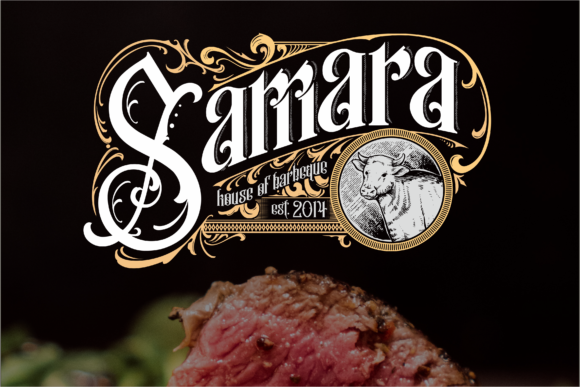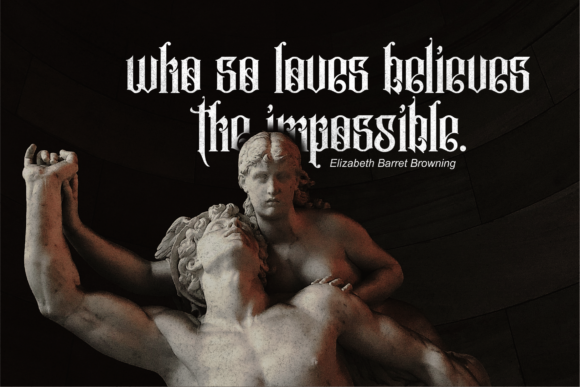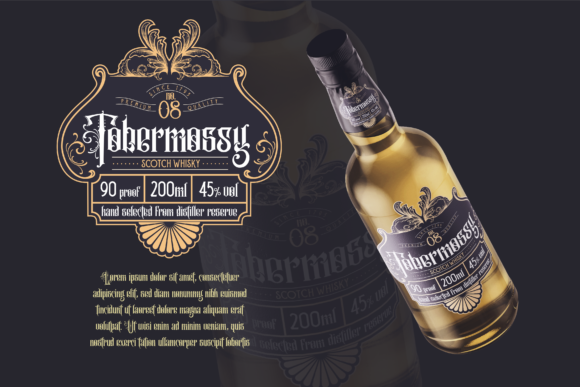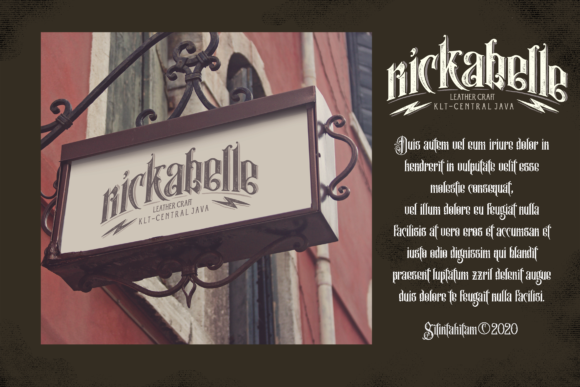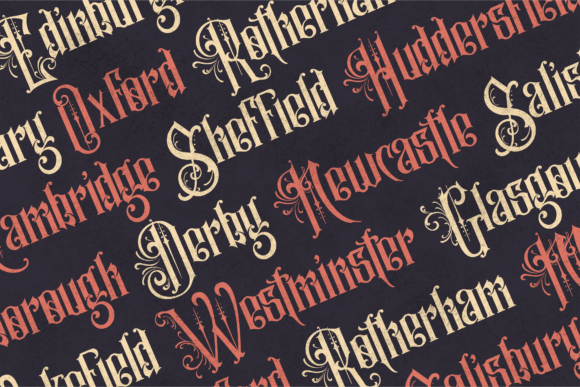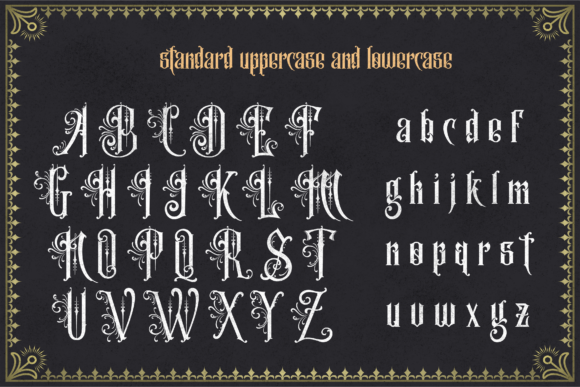
Discover the Power of Arteria Font
Have you ever stared at a blank page, trying to conjure up the perfect font to bring your design to life? It’s a moment we’ve all experienced – the moment when the right font can make or break the entire aesthetic. For designers, this is a constant challenge, and one that requires a keen eye for detail and a deep understanding of typography.
That’s where Arteria Font comes in – a vintage-styled display font that exudes boldness and power. Designed to make your designs stand out from the crowd, Arteria Font is the perfect addition to any creative project. Whether you’re working on a branding campaign, a magazine spread, or a social media post, this font is sure to make a lasting impression.
With its unique blend of classic and modern elements, Arteria Font is a valuable tool for designers looking to add some extra flair to their work. So why settle for a generic font when you can make a statement with Arteria Font?
Arteria Font Key Features
- Unique Characteristics: Arteria Font features a unique blend of modern and vintage elements, with intricate details and ornaments that add a touch of elegance to any design.
- Font Family: Arteria Font is a serif font with multiple weights and styles, including light, regular, bold, and italic, making it versatile for various design applications.
- Scalability: Arteria Font is designed to be highly scalable, ensuring that it looks great in both small and large font sizes, from body text to display headlines.
Arteria Font Review
As a designer, I was excited to dive into the Arteria Font, and I must say it has its charm. Here’s what I loved about it: ✨
- Unique aesthetic: The font has a distinctive, hand-drawn feel that sets it apart from more common sans-serif fonts.
- Creativity booster: The unusual letterforms can add an extra layer of visual interest to designs, making them perfect for creative projects.
- Legibility: Despite its quirks, the font remains relatively legible, even at smaller font sizes.
However, as with any font, there are limitations: ⚠️
- Readability issues: While the font is legible, it may not be the best choice for large blocks of text or formal documents.
- Limited font sizes: The font can become quite difficult to read when enlarged, which may limit its use in certain contexts.
Overall, I think the Arteria Font is a great addition to any designer’s toolkit. While it may not be suitable for every project, its unique aesthetic and creativity-boosting potential make it a valuable resource for designers looking to add some flair to their work.
Getting the Most Out of Arteria Font
To get the most out of Arteria Font, use it in combination with bold and italic styles to add emphasis to your text. You can also use it in conjunction with other fonts to create a unique and visually appealing design.
Arteria Font is commonly used in creative and design projects, such as logos, business cards, and social media graphics. It is also used in editorial and publishing projects, such as magazines and newspapers.